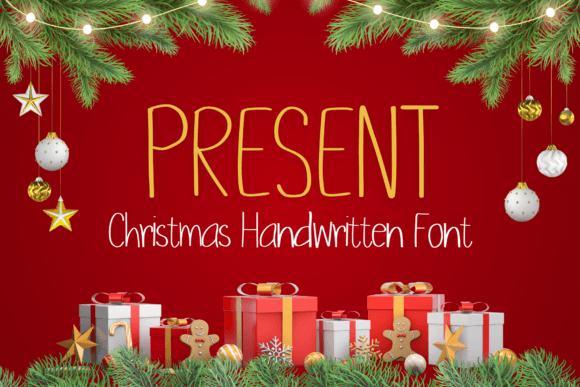
Introducing Present Font, the perfect script font for all your wedding banner needs! Created by Digital Creative Art, this sweet and friendly handwritten display font will add a touch of charm and elegance to any project.
Are you tired of the same old boring fonts that everyone else is using? Look no further! Present Font is here to elevate your designs and make them truly stand out. With its cute and fun style, this font brings a refreshing and playful vibe to your crafts, digital designs, presentations, and more.
Planning a wedding and need to create stunning invitations and cards? Present Font is your go-to choice! Its elegant script style adds a touch of sophistication to your wedding stationery, making it truly memorable. Your guests will be captivated by the unique and beautiful fonts used in your wedding materials.
But don't limit yourself to just weddings! Present Font is versatile and can be used for a wide range of projects. Whether you're designing social media graphics, branding materials, or personalized gifts, this font will add that extra touch of creativity and personality.
One of the best things about Present Font is its user-friendly nature. It's incredibly easy to install and use, so you can start creating stunning designs in no time. Plus, with its extensive character set and multiple ligatures, you have endless possibilities to explore and create truly unique and eye-catching designs.